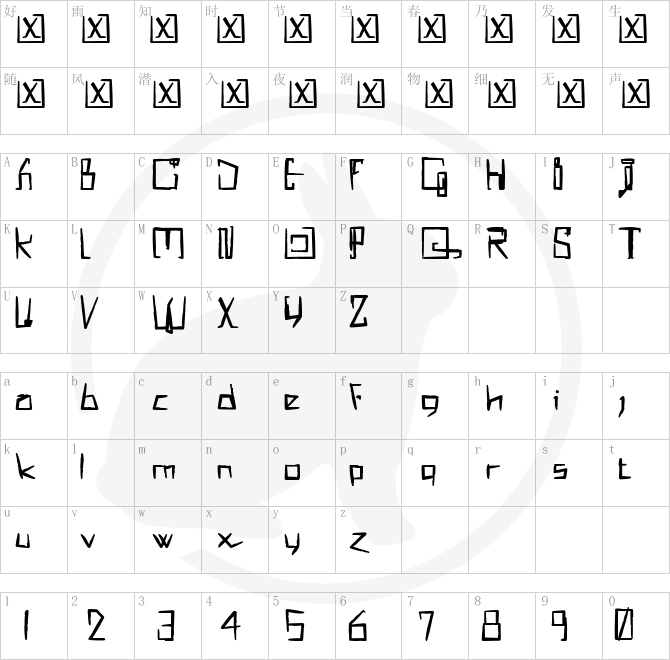
- Font Name:!MISQOT
!MISQOT-Heavy.ttf is a very beautiful artistic font, !MISQOT-Heavy.ttf is widely used in the design and printing of various books and pictures,!MISQOT-Heavy.ttf has a strong visual impact,!MISQOT-Heavy.ttf is a commonly used font in newspapers, magazines and books, and is used in posters, e-commerce Poster design, store design, logo design, font design and other fields.!MISQOT-Heavy.